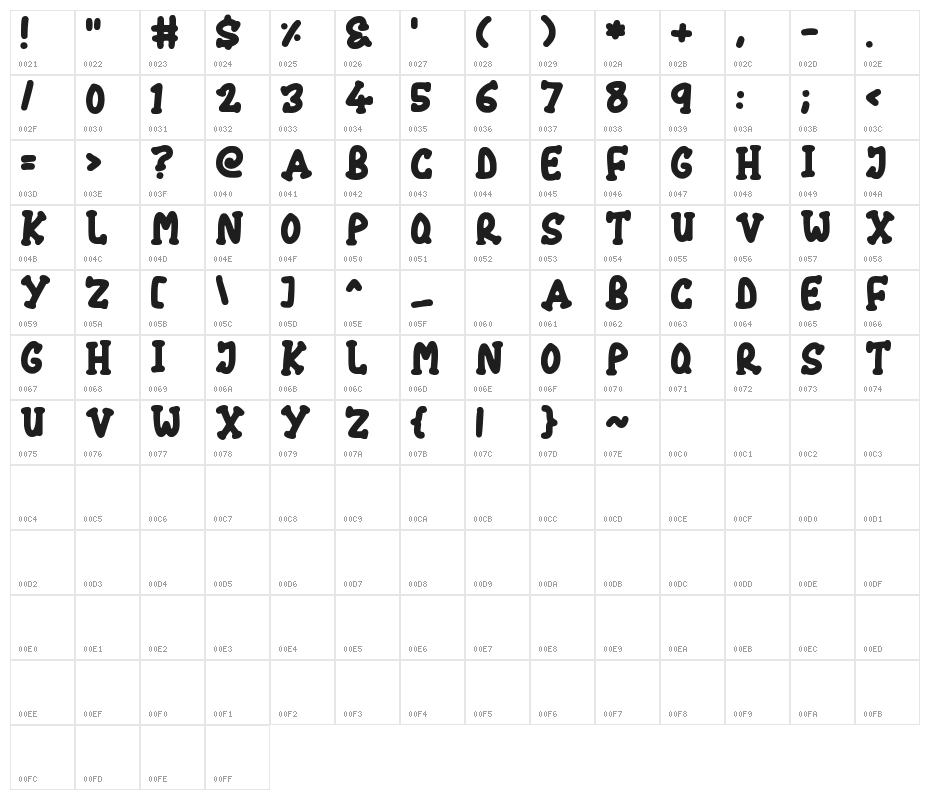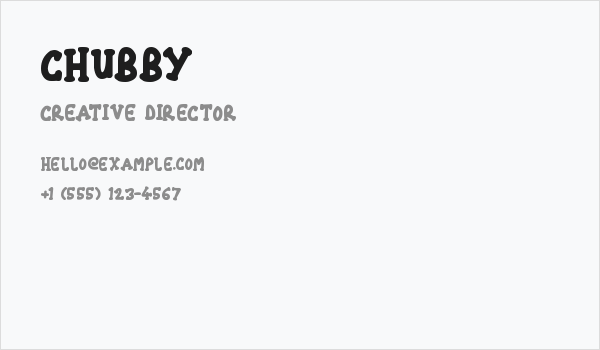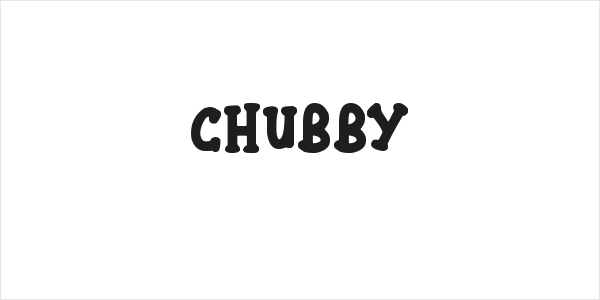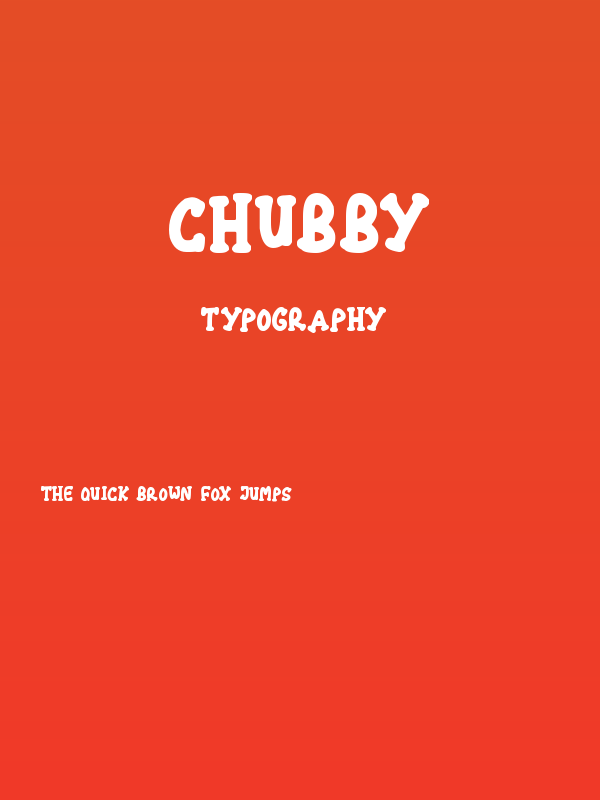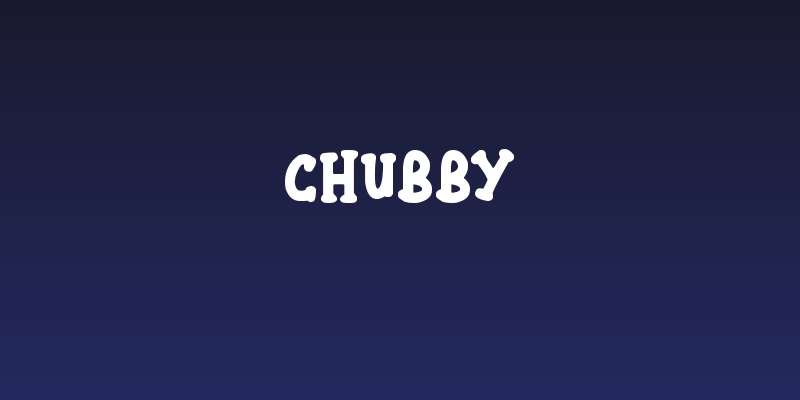
Chubby Font
This font features a playful and bold design with rounded, chubby characters that exude a sense of fun and whimsy. The letters are thick and uniform, with a consistent stroke width that gives them a solid and substantial appearance. The rounded edges and lack of sharp angles contribute to its friendly and approachable style. This font is highly legible and stands out due to its unique, bubbly aesthetic, making it ideal for designs that aim to capture attention and convey a lighthearted tone.
| Overall Style | Playful, Fun, Whimsical |
| Proposed Projects | Ideal for children's books, playful branding, party invitations, and any project requiring a fun, eye-catching typeface. |